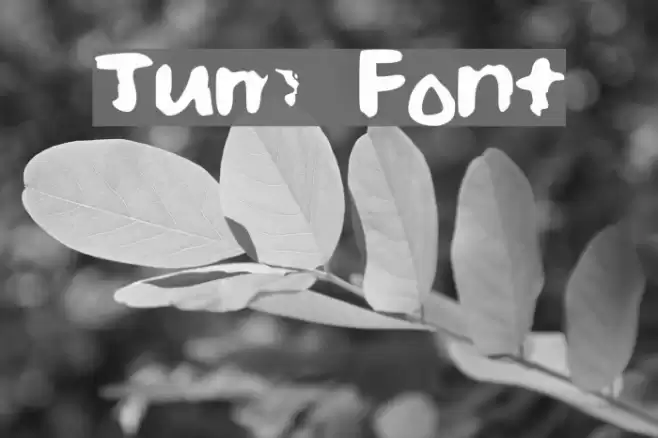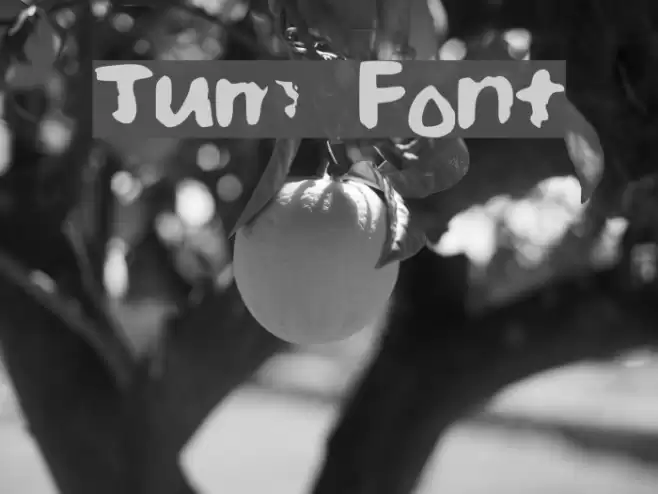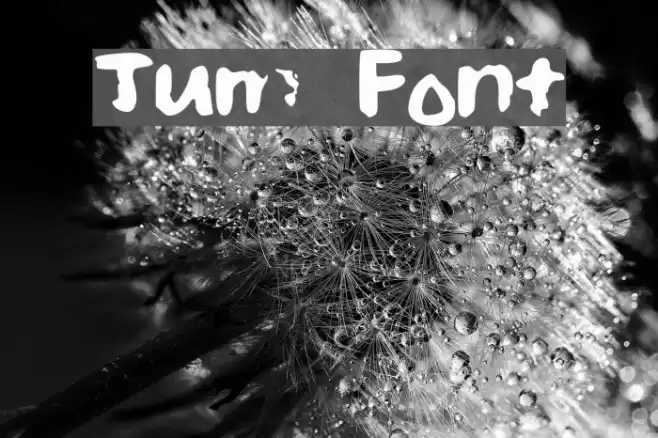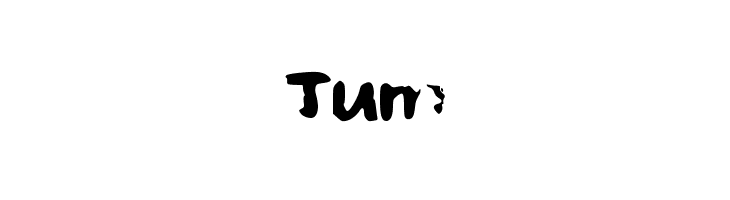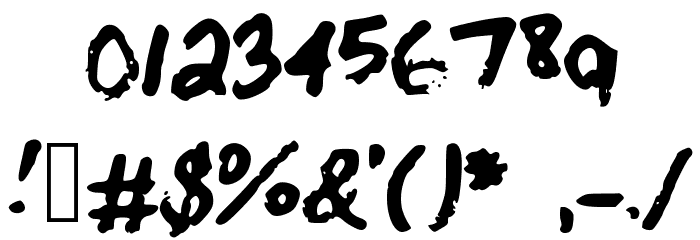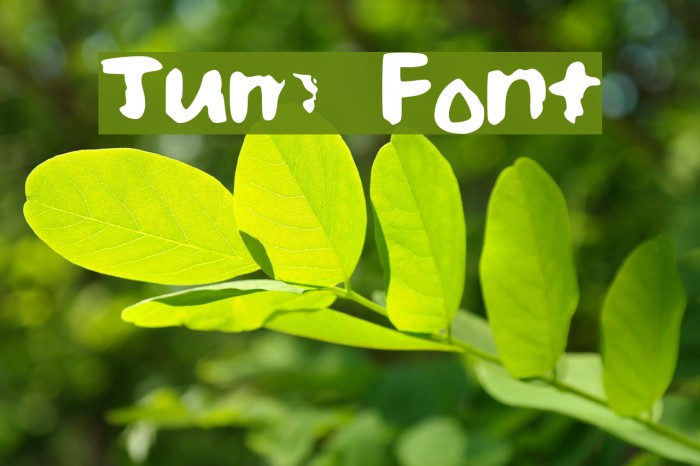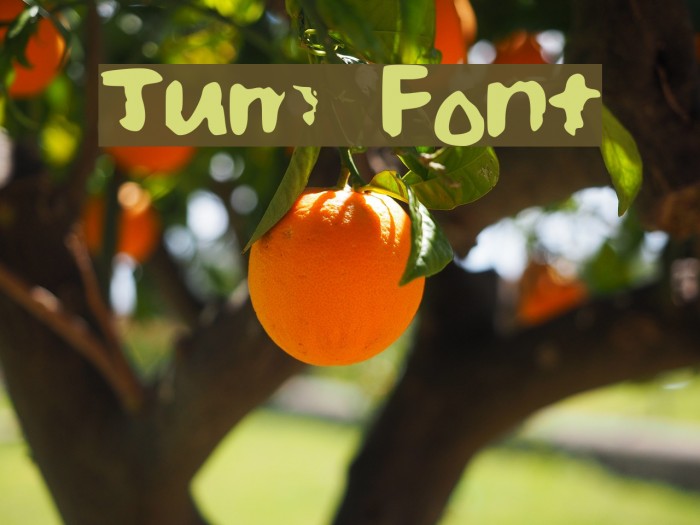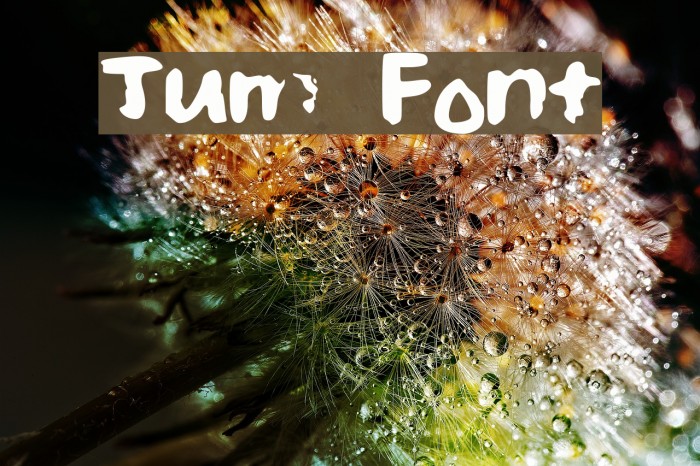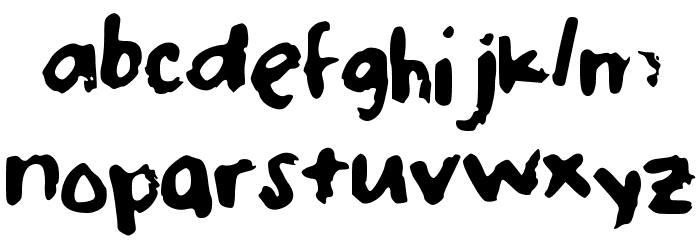
Jum Font
Jum Description
This font exhibits a bold and expressive style, characterized by its thick, uneven strokes and a hand-painted appearance. The letters have a playful, energetic vibe, with irregular edges that give them a raw, artistic feel. The uppercase and lowercase letters maintain a consistent weight, contributing to a cohesive look. The numbers and special characters follow the same design principles, ensuring uniformity across all glyphs. This font's unique style makes it stand out, offering a dynamic and creative option for various design projects.
A bold, hand-painted style font with thick, uneven strokes and an artistic flair from Uncategorized fonts.
- Proposed Projects: Ideal for creative projects such as posters, album covers, branding for artistic ventures, or any design requiring a bold, expressive touch.
- Overall Style: Artistic, Expressive, Playful
- Use Case: Headlines, Posters, Branding